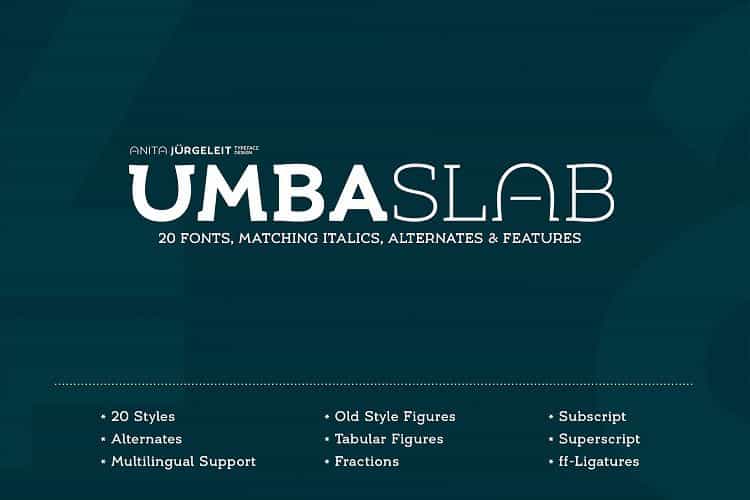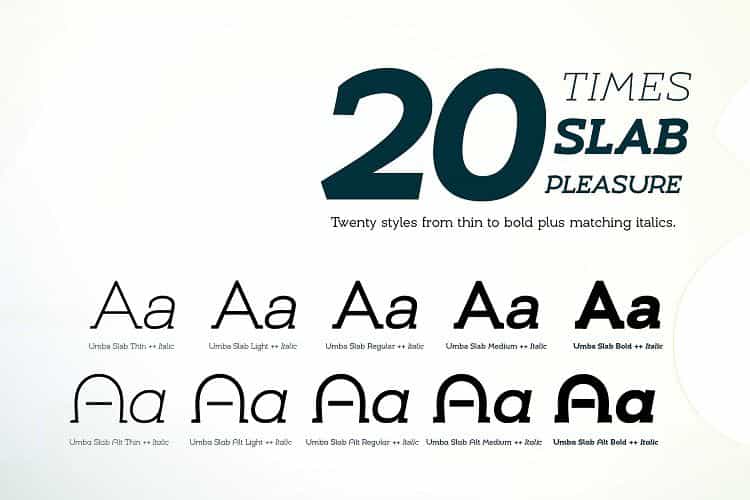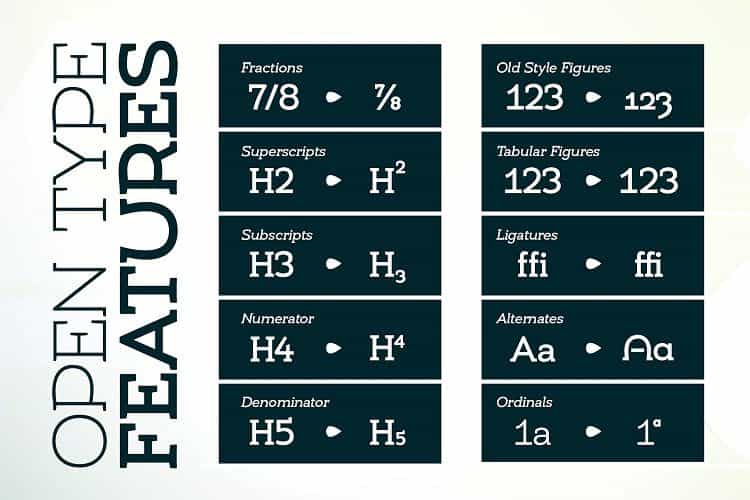
Introducing Umba Slab! It is created and distributed by Anita Jurgeleit. Umba Slab Font Family is a simple yet striking font created by Anita Jürgeleit. It gives an amazing dimension to your corporate design and titling by making a more dynamic shape from thin to bold. It is made for the extended scope of applications and to build a very strong branding and titling.